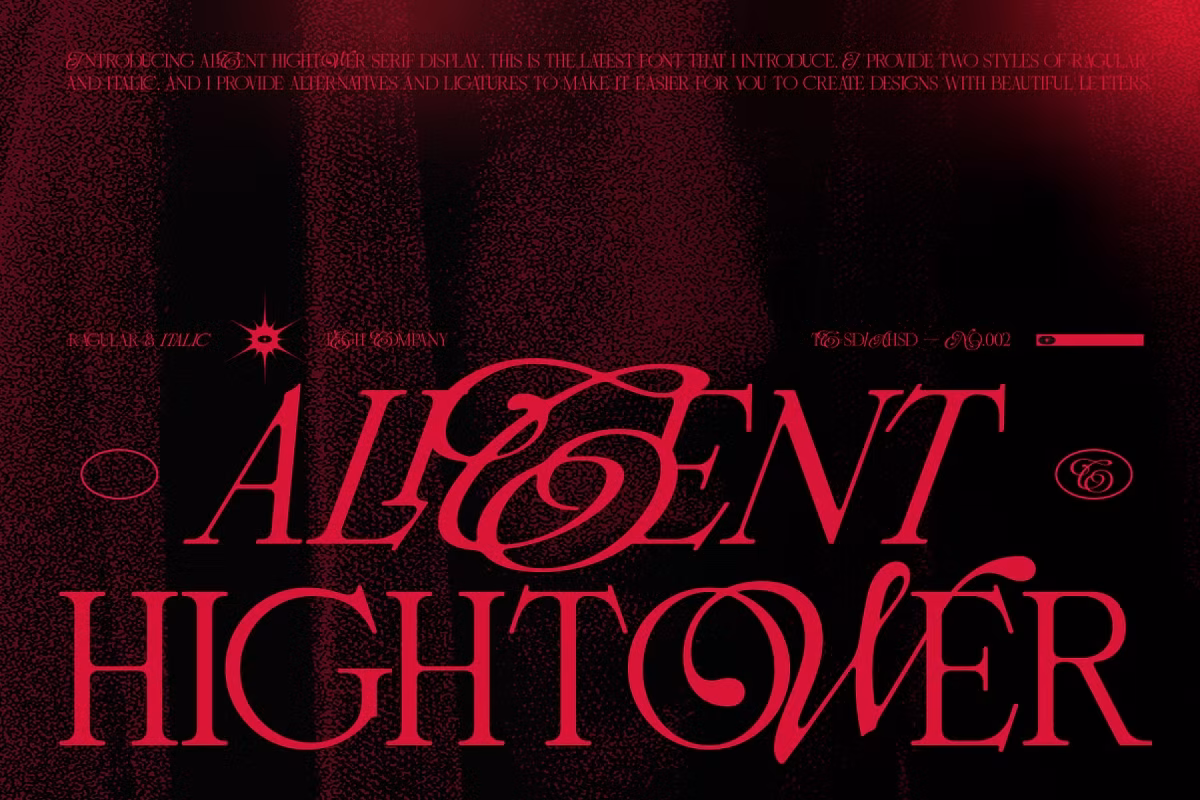
Please note, you must purchase this font for commercial use. However, you can easily download ALICENT HIGHTOWER SERIF DISPLAY Font Free Download for personal use and testing purposes. ALICENT HIGHTOWER SERIF DISPLAY Font is a striking, elegant serif typeface that combines modern sophistication with classic design elements. Perfect for display purposes such as headlines, logos, posters, and branding, this font offers bold, refined letterforms with a timeless appeal. Whether you're working on a luxury brand, high-end editorial design, or stylish marketing materials, ALICENT HIGHTOWER SERIF DISPLAY Font Free Download adds a touch of class and distinction. Download ALICENT HIGHTOWER SERIF DISPLAY Font Free Download today and explore its potential before opting for a commercial license.